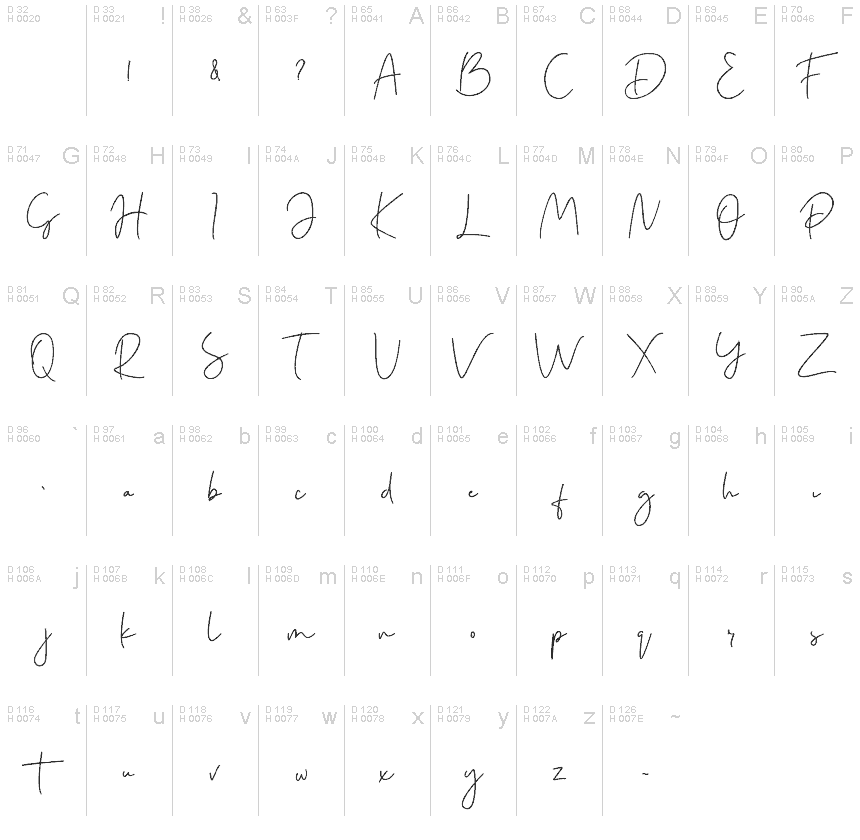
Margareth is a captivating handwritten signature-style font that exudes an effortless charm. Its light weight and flowing, organic lines create a sense of graceful elegance, making it a versatile choice for a wide range of design applications.
The font's distinctive character shines through in its expressive, yet refined strokes, seamlessly blending the personal touch of a handwritten signature with a polished, refined aesthetic. Margareth's versatility allows it to excel in branding and packaging design, where its signature-like quality can lend a personalized touch to logos, labels, and more.
Whether you're crafting an exclusive product line or designing a bespoke wedding invitation, Margareth's unique personality can elevate your work with its timeless appeal and refined sensibility.